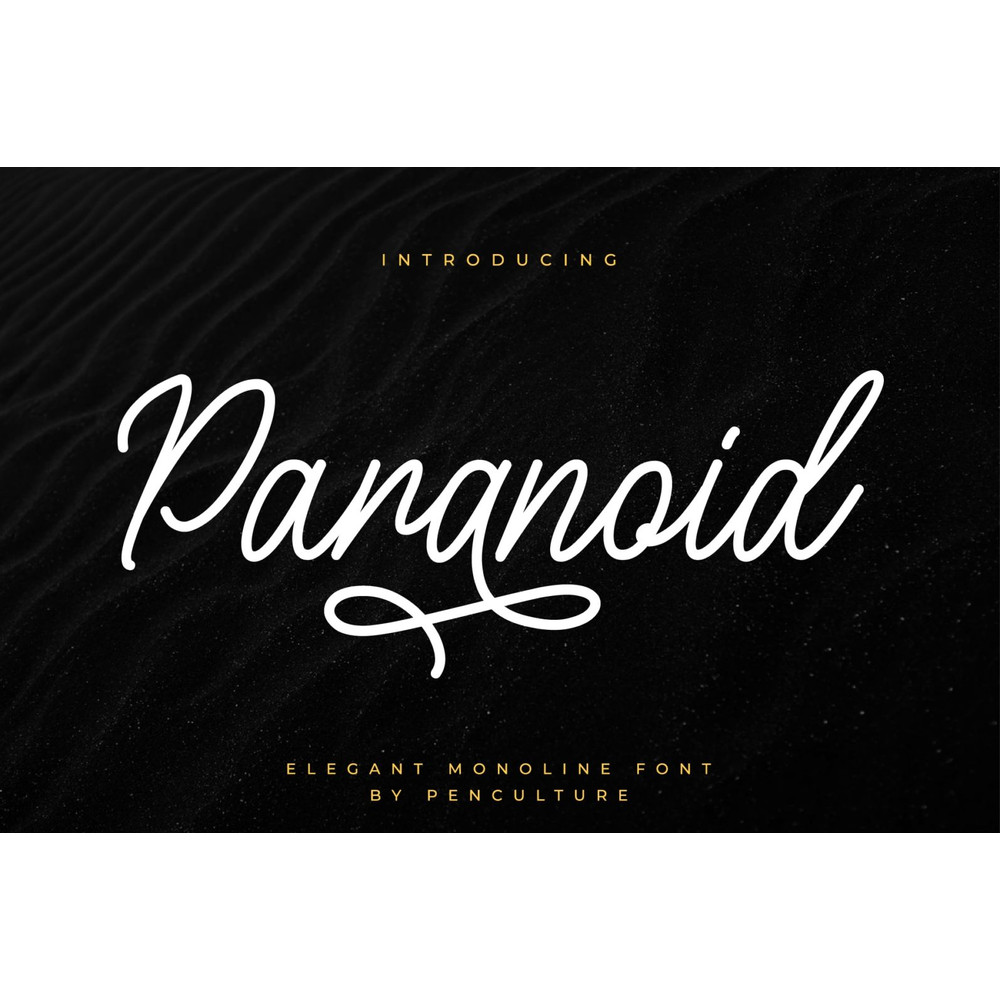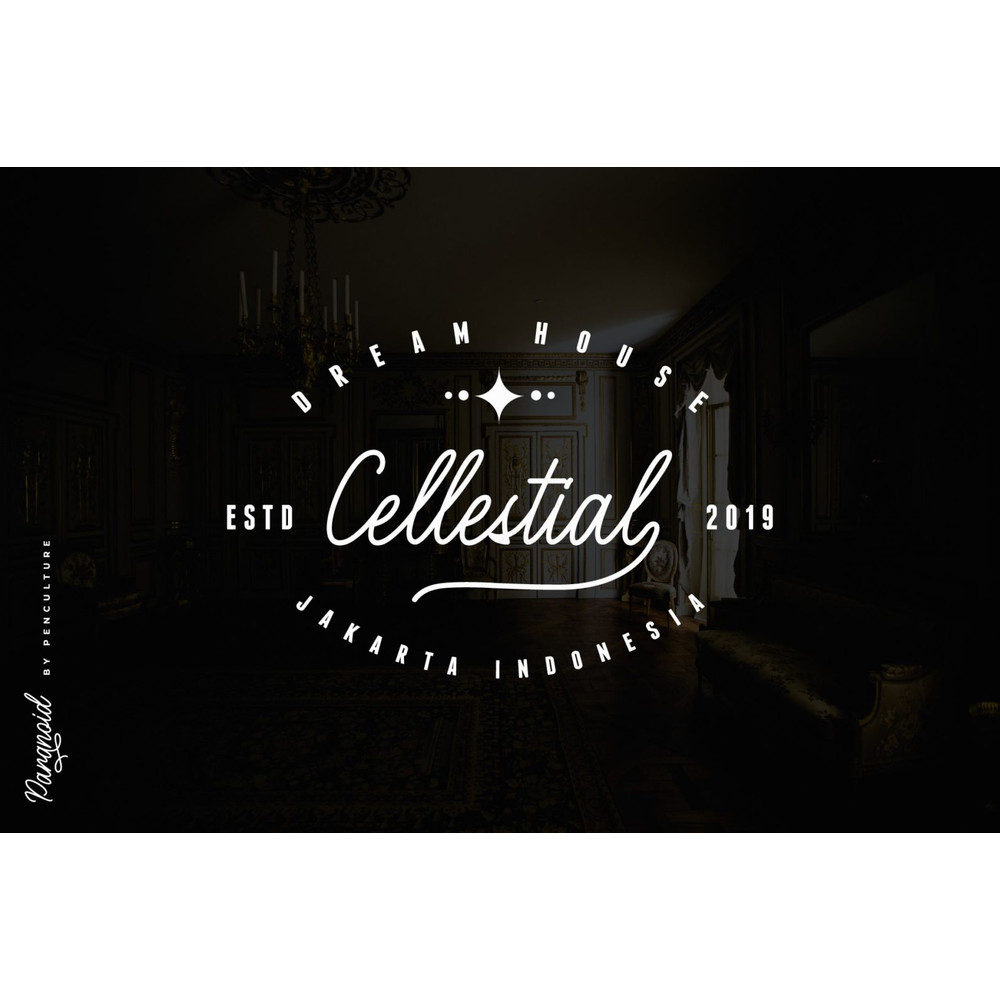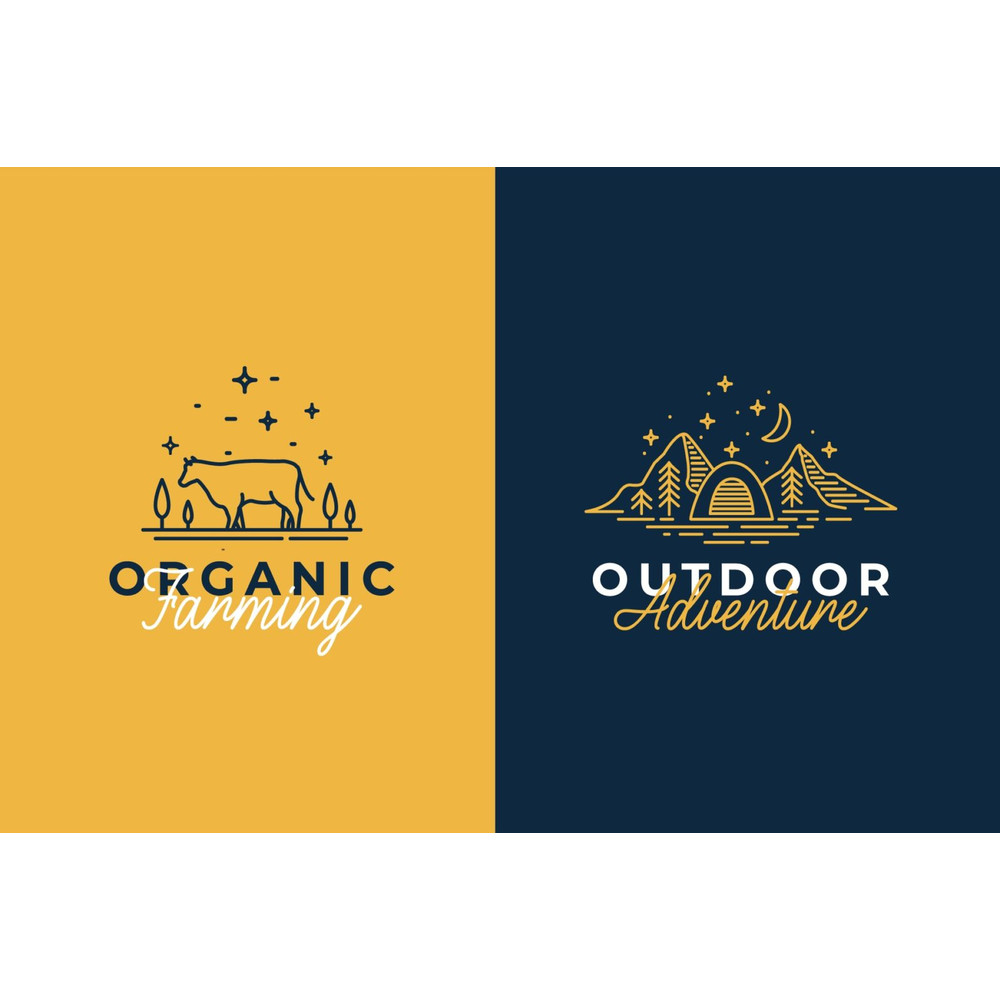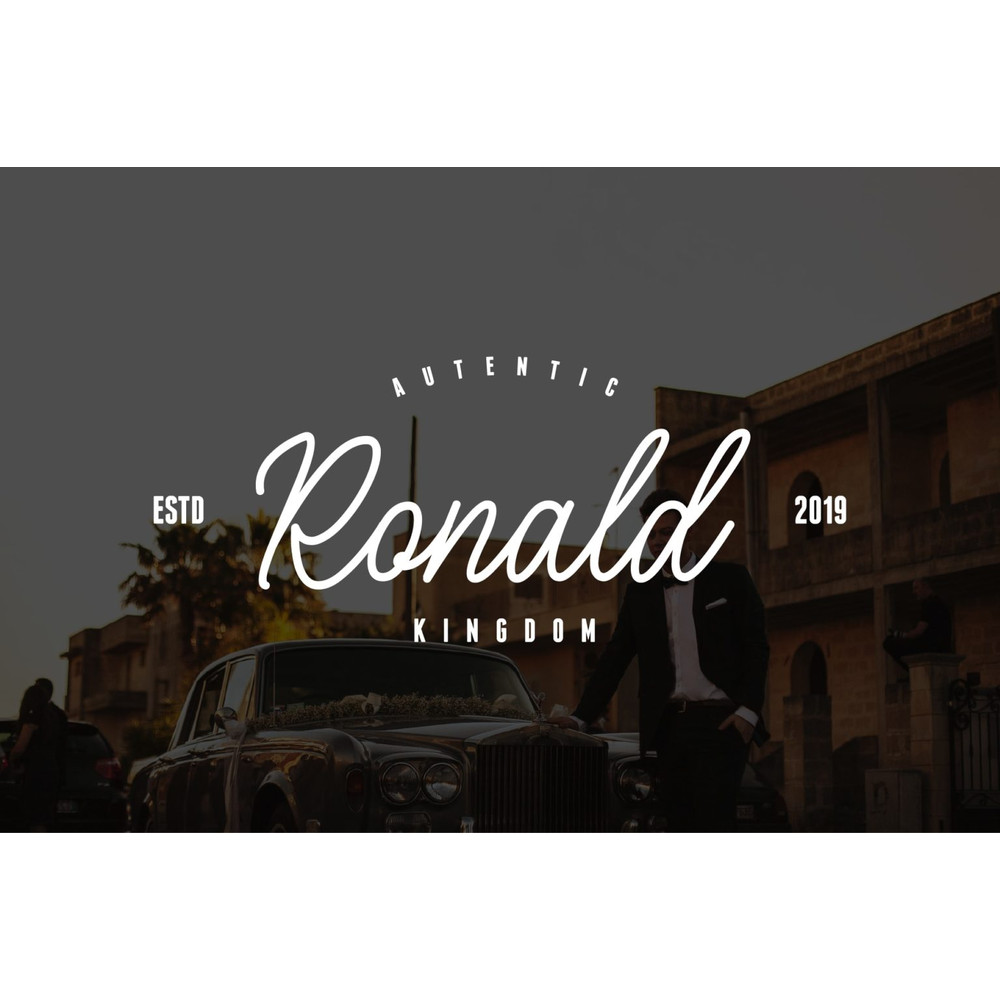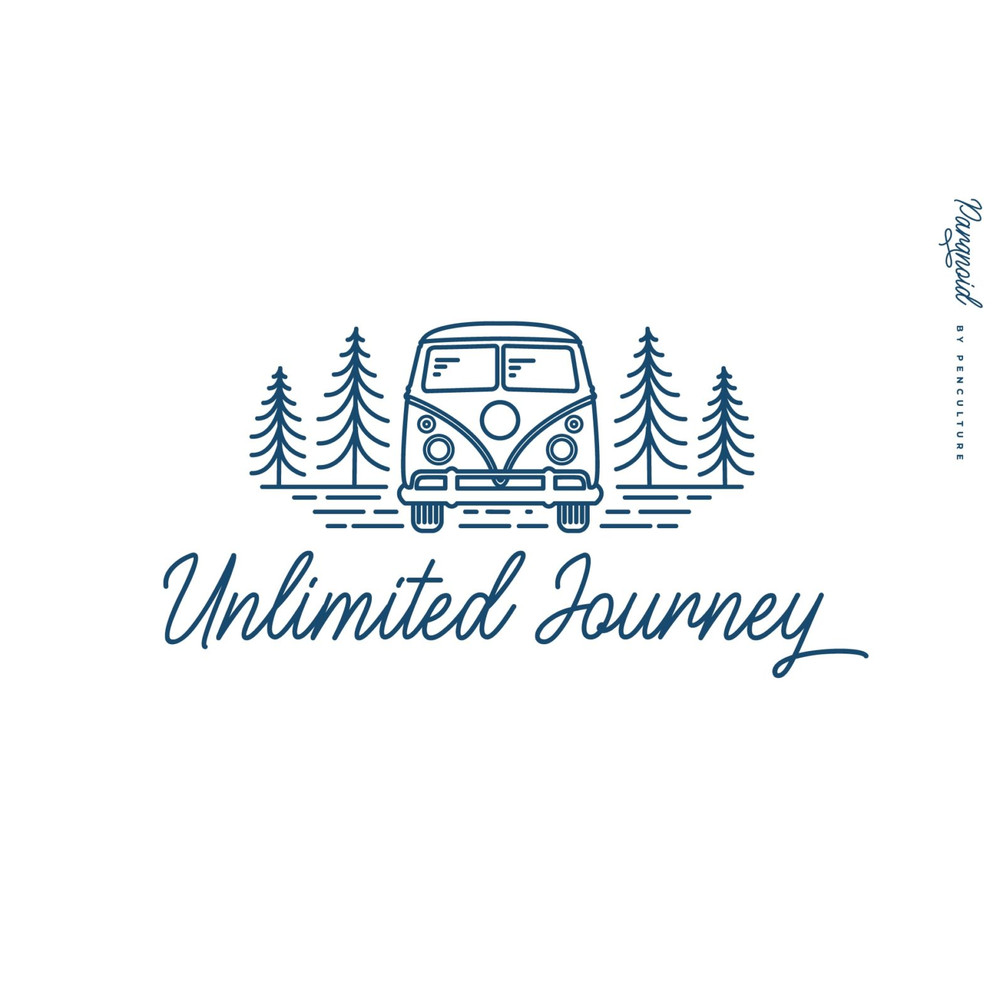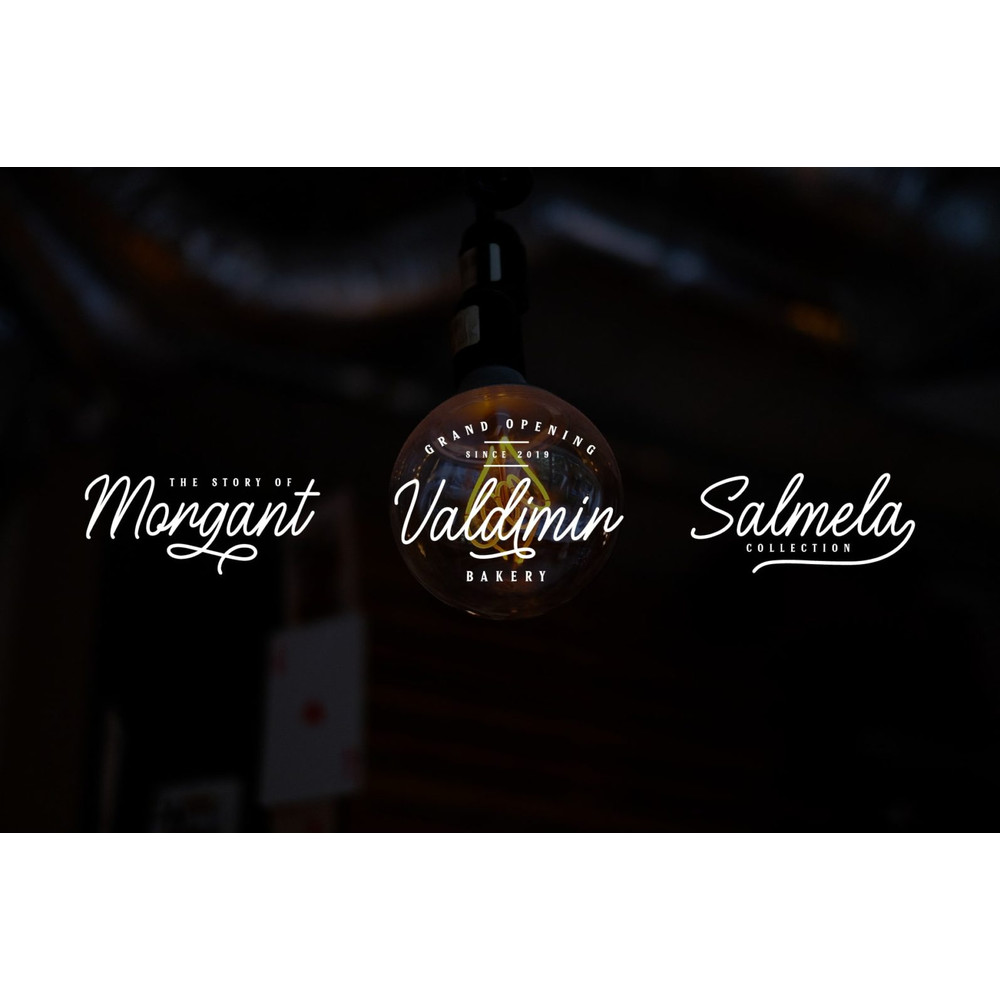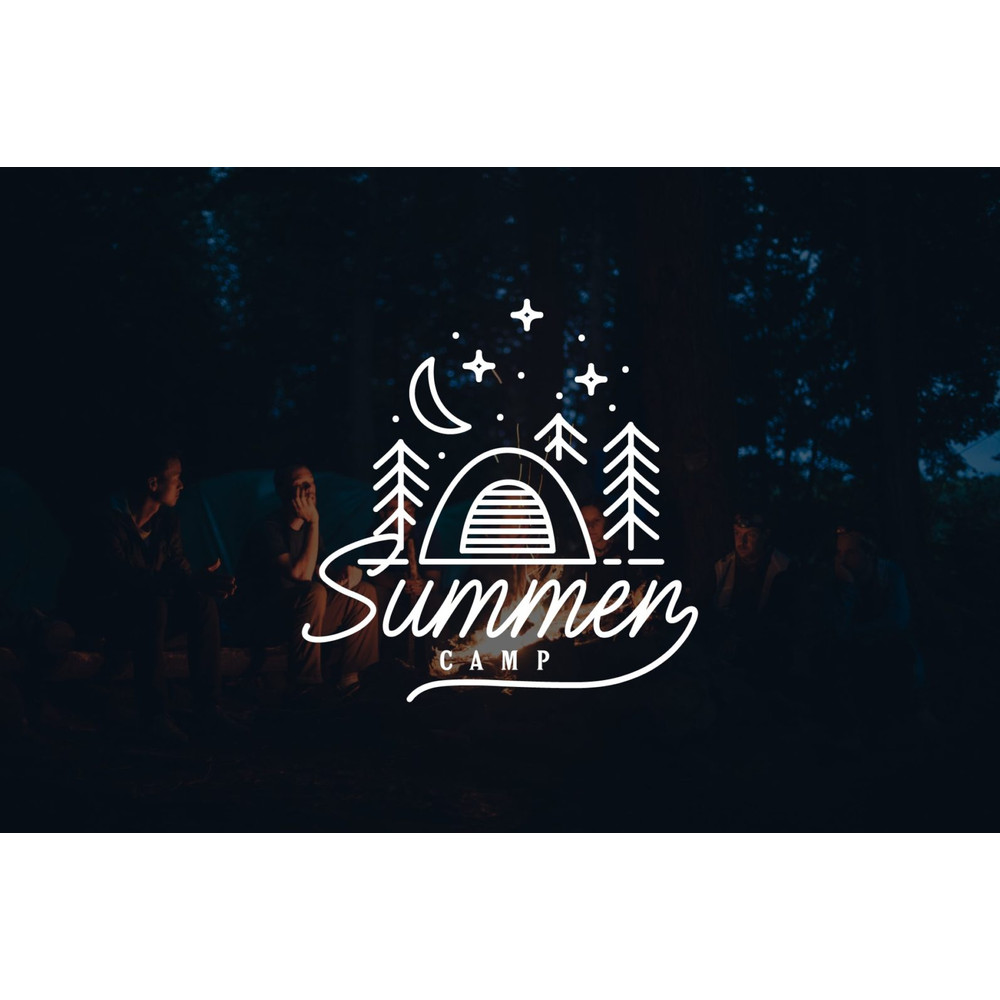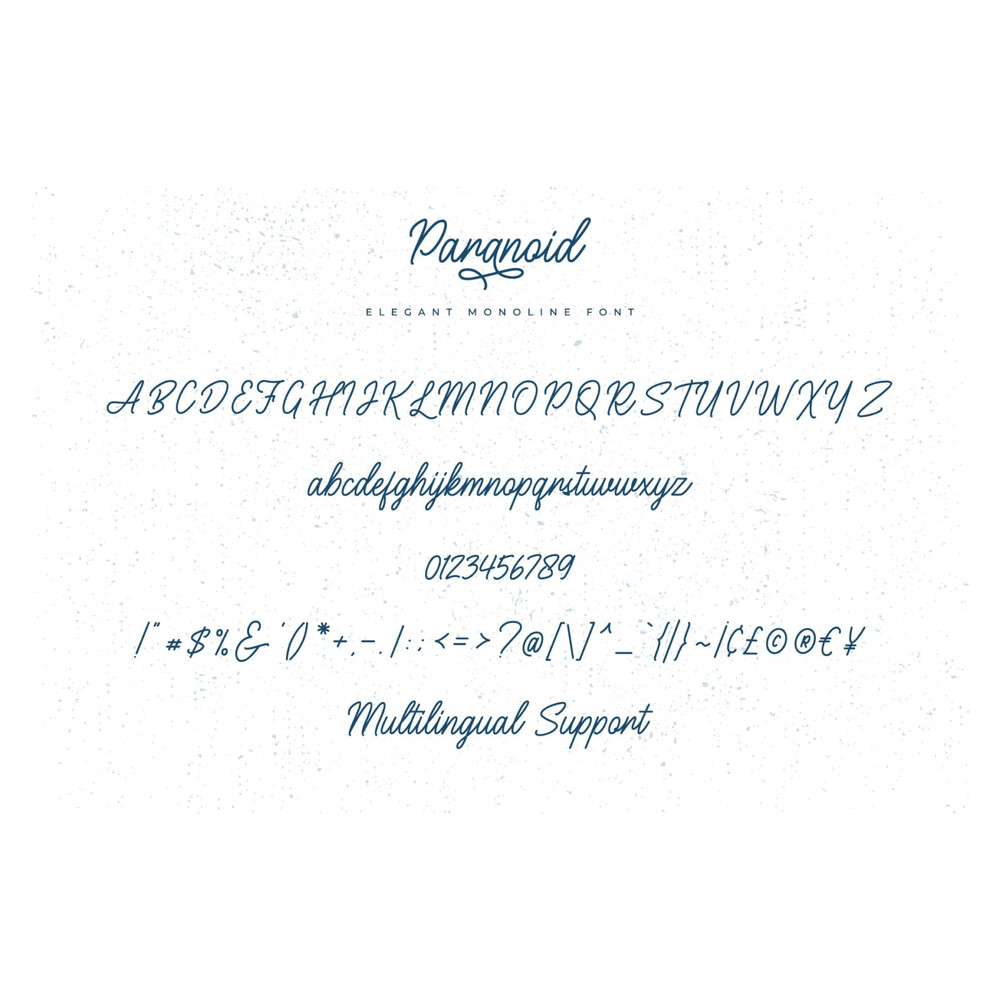
Paranoid – Elegant Monoline Trending Fonts - Digital Font
Paranoid is elegant mono line font that comes with various kinds of alternate that will make design very awesome and elegant
– Uppercase and lowercase
– Number
– Punctuation
– Multilingual support
– Beautiful alternate